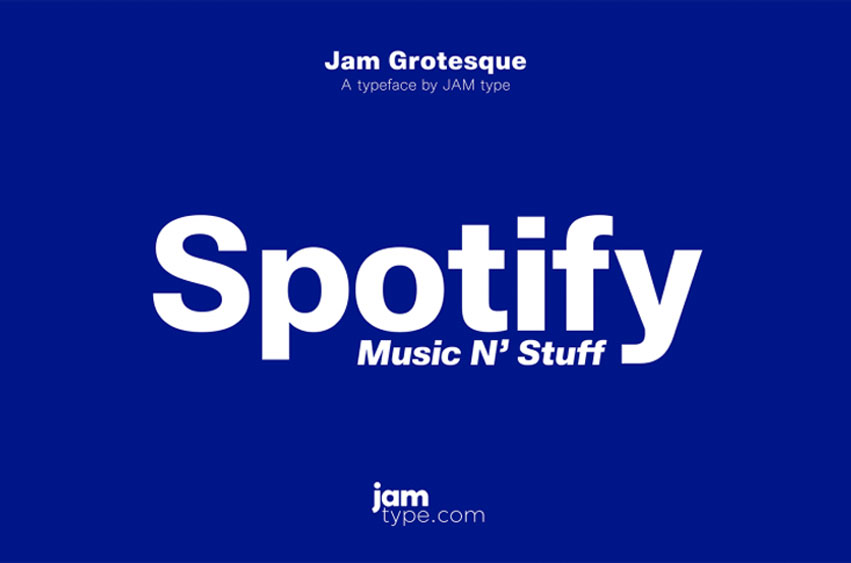
Jam Grotesque Font
Jam Grotesque Font Sans Font Family draws its inspiration from classic typefaces such as Helvetica and Neue Haas Unica to produce stunning printed and online fonts, like Helvetica and Neue Haas Unica.
This beautiful font can be used for print and online applications; perfect for apparel logos, skate boards logos and many other forms of business branding! It was designed specifically to meet all of your business branding needs – it will not let you down!